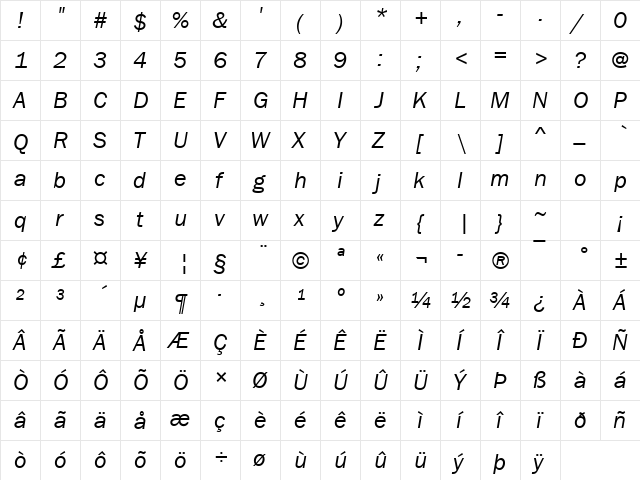
Franklin Gothic Book Italic
| Foundry | International Typeface Corporation |
| Designer | Victor Caruso |
Design Context for Franklin Gothic Book Typeface
Franklin Gothic Book has the quiet confidence of well-executed sans-serif typography: versatile, unobtrusive, and dependable at any size. The slanted form adds forward momentum and visual energy.